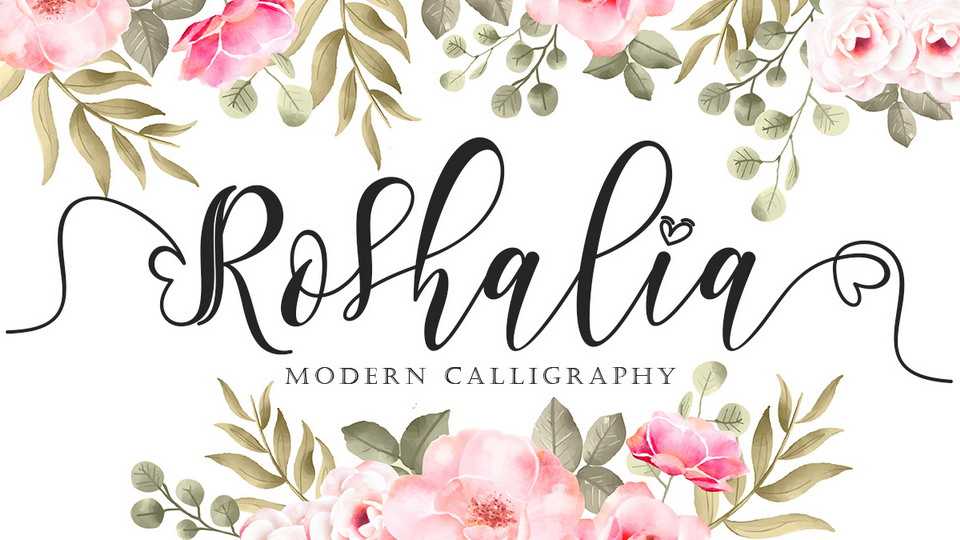
Download Roshalia font, a very beautiful, high-quality font complemented by very unique swashes and ligatures. Roshalia can make your work more romantic and elegant.